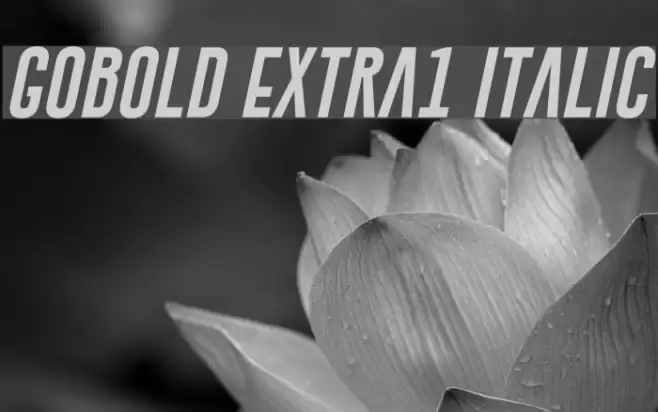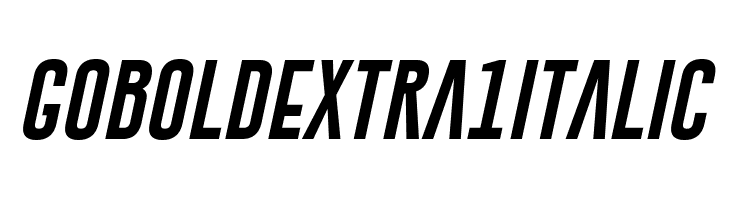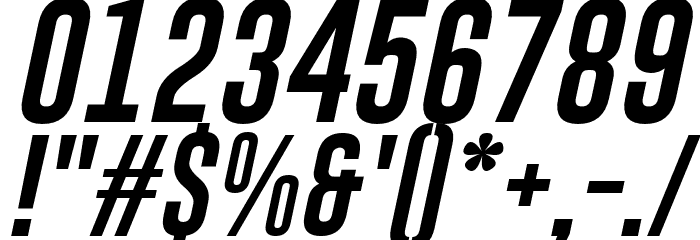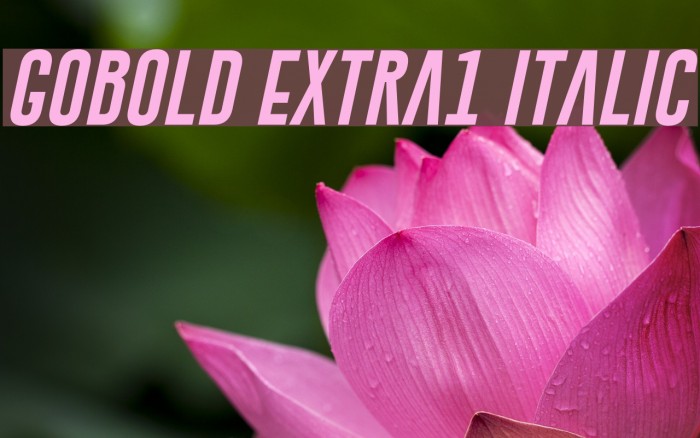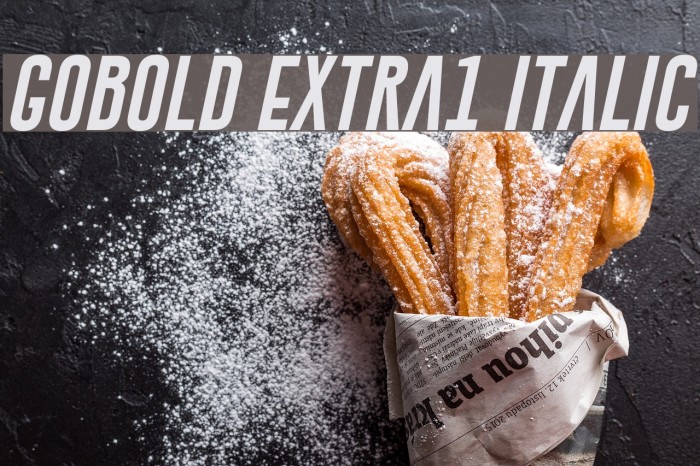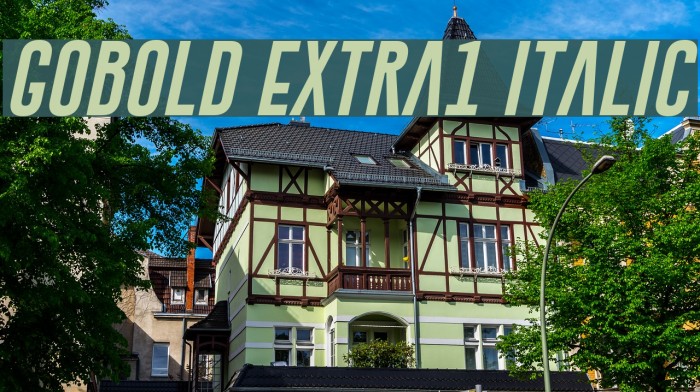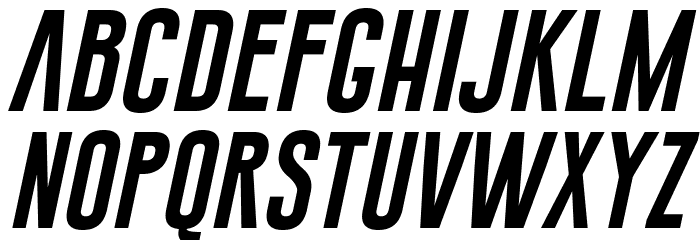
Gobold Extra1 Italic Font
Gobold Extra1 Italic Description
This font features a bold and dynamic design with a strong italic slant, giving it a sense of movement and energy. The characters are tall and narrow, with a condensed width that enhances its sleek appearance. The strokes are consistent in thickness, providing a uniform look across all characters. The uppercase letters are particularly striking, with sharp angles and clean lines that convey a modern and assertive style. The numerals and special characters maintain this cohesive design, ensuring versatility across various applications.
A bold, italic, and condensed font with a modern and dynamic style from Uncategorized fonts.
- Proposed Projects: Ideal for sports branding, dynamic posters, modern advertising, and eye-catching headlines.
- Character Spacing: Tight